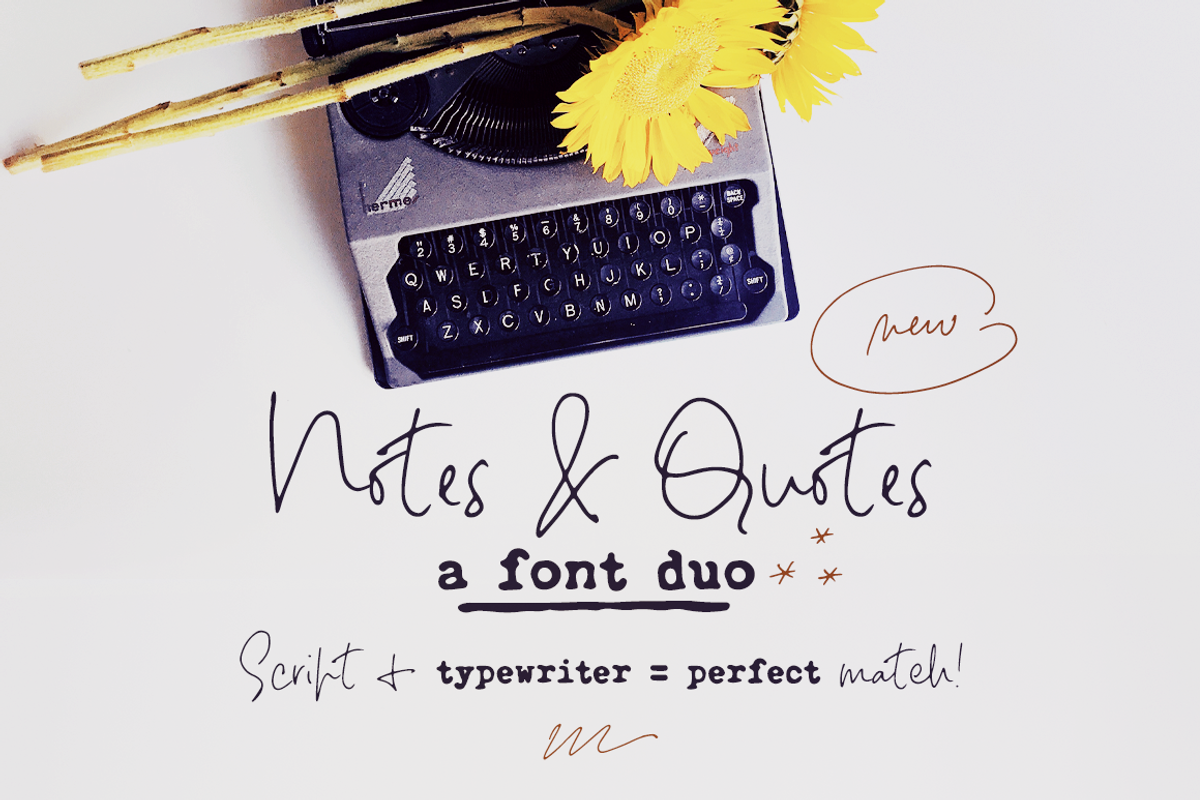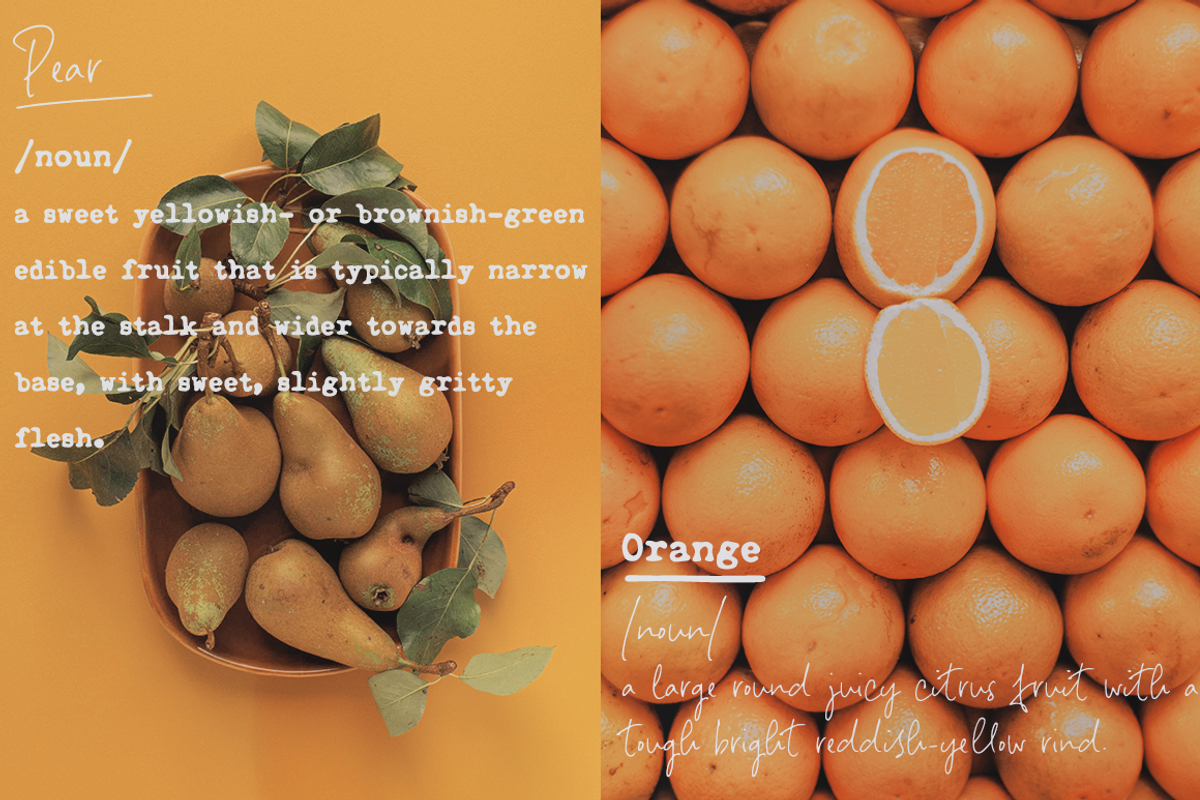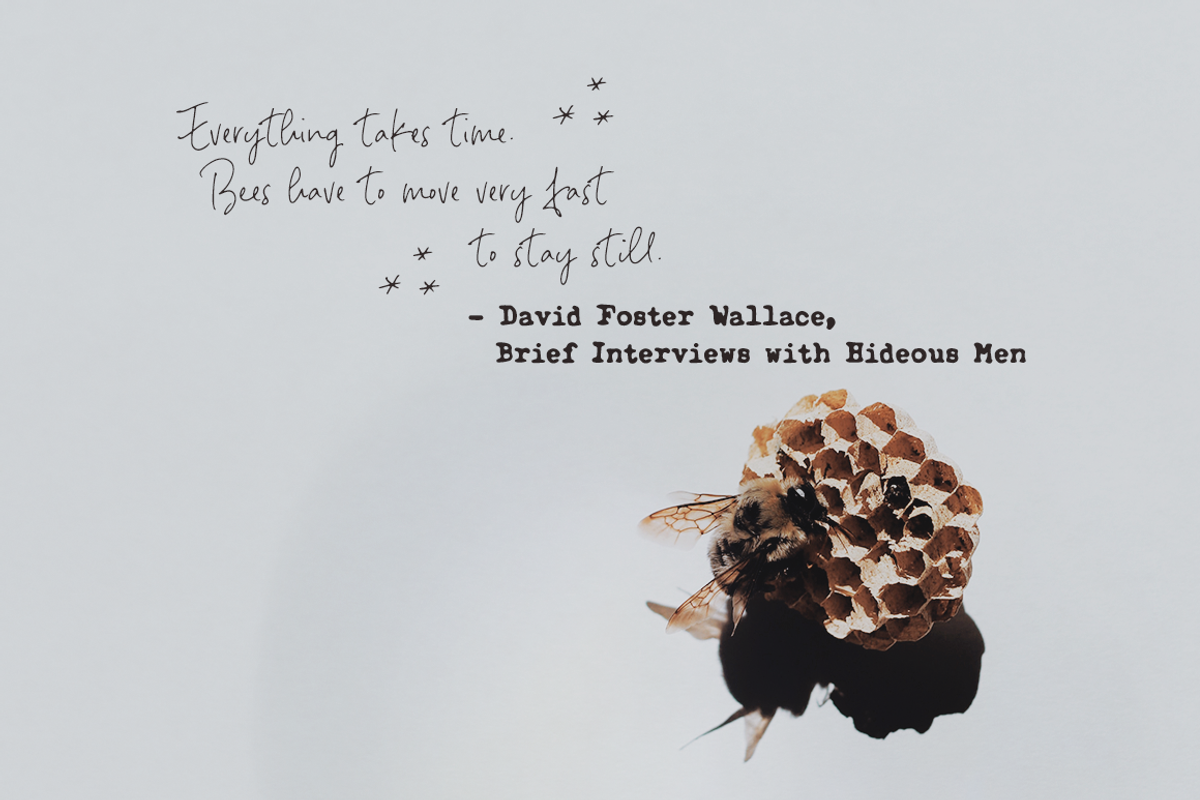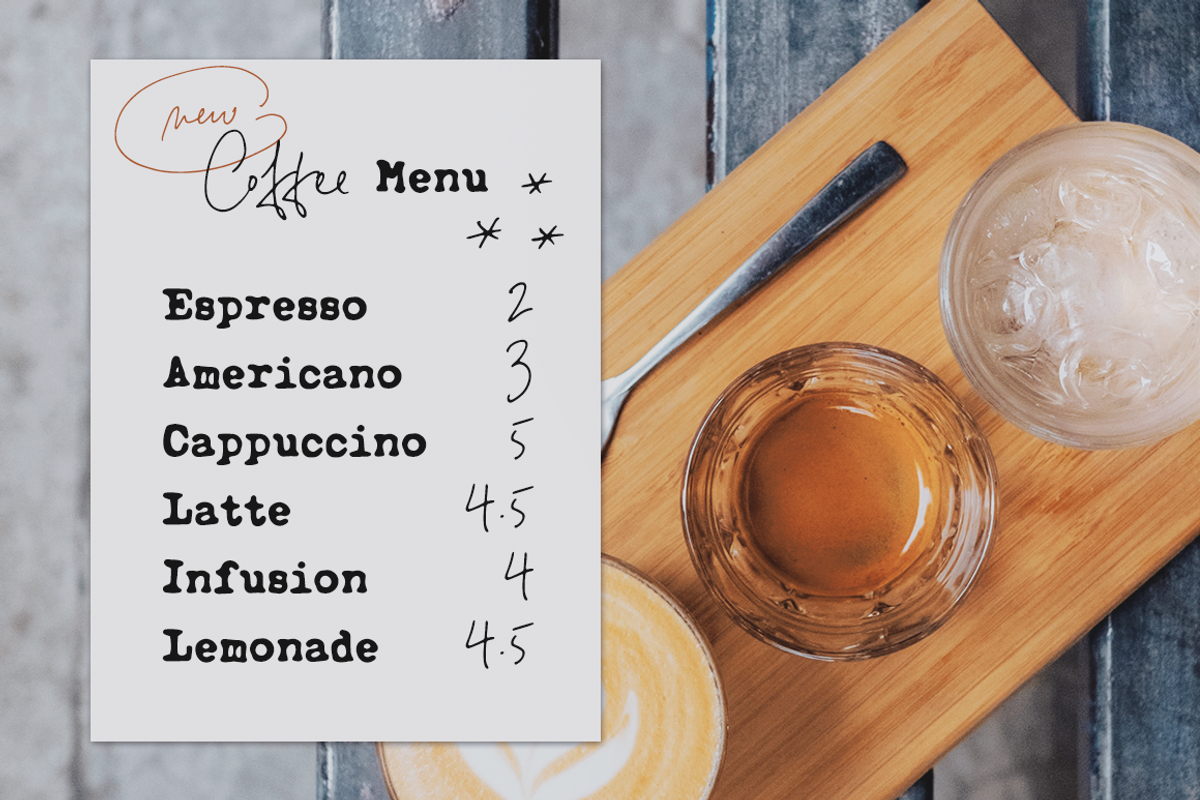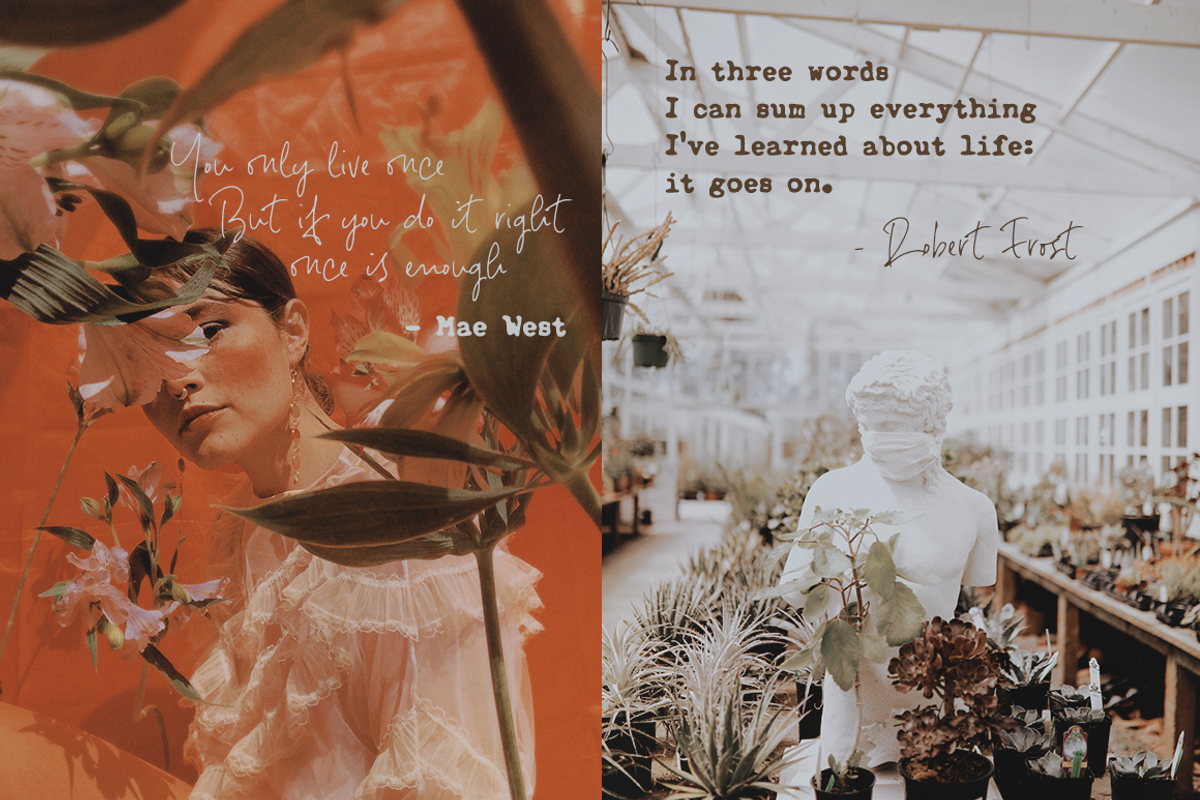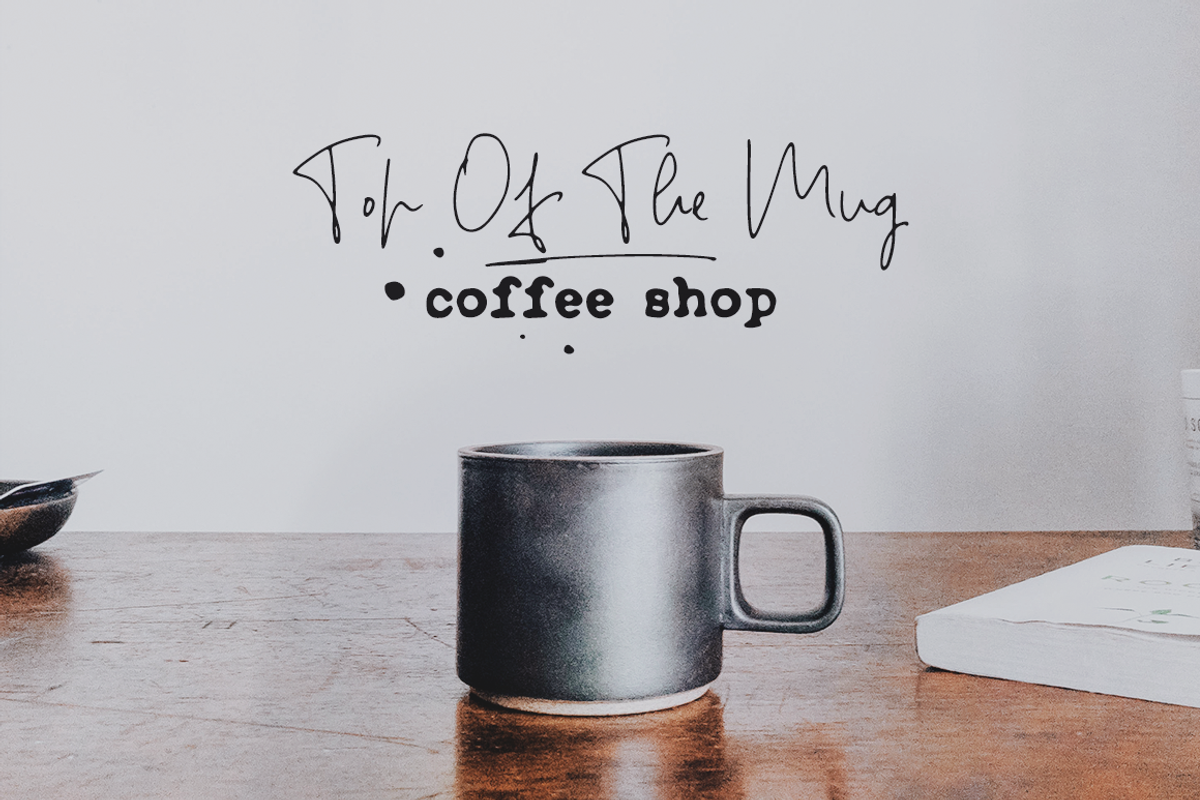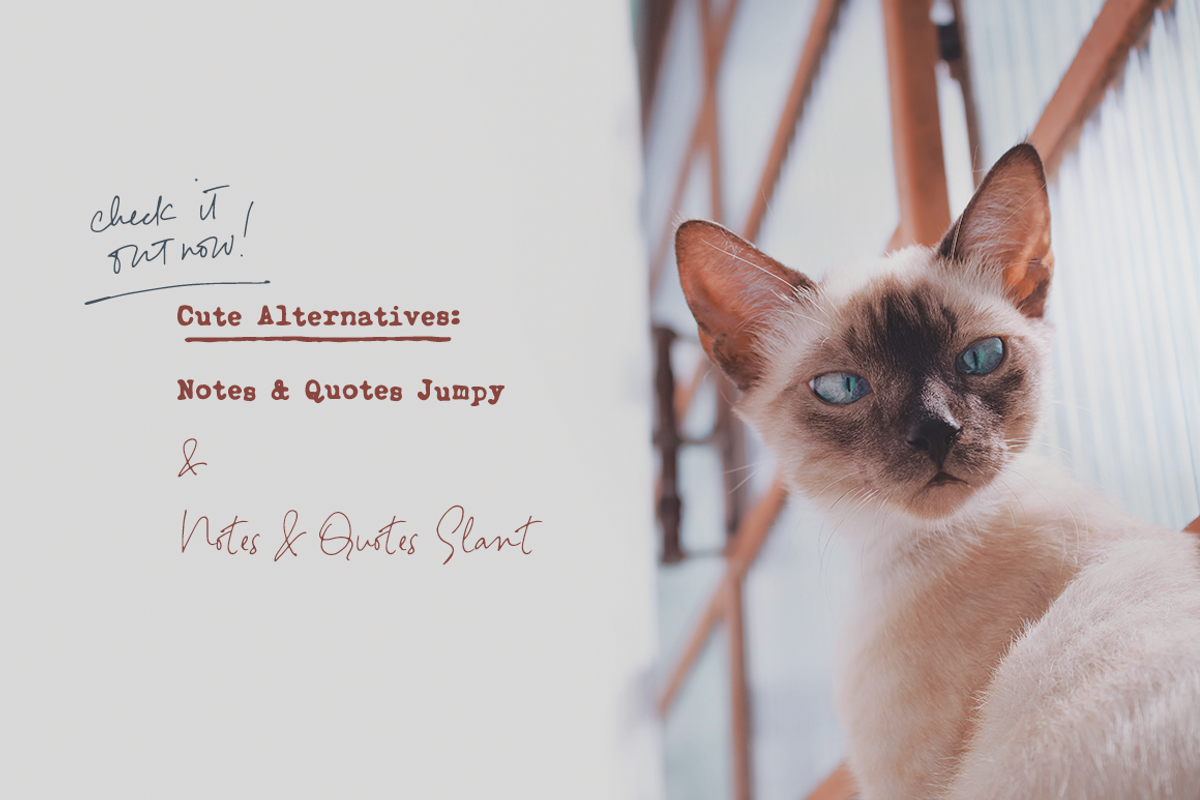
Notes And Quotes Font Duo
Notes And Quotes is a font duo that includes a bold typewriter font and a casual script font. The contrast between the fonts makes it a striking pair, perfect for logotype design, modern branding and packaging, quotes and social media posts.
Notes And Quotes includes 6 fonts:
- a handwritten script font with
- a slant alternative and
- a bonus set of handwritten doodles (underlines, circles, words and short sentences, etc)
- a bold typewriter font with
- a "jumpy" alternative and
- a set of bonus misprints and grungy elements